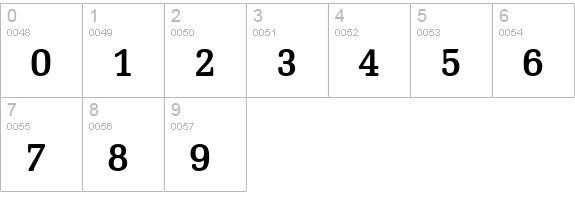
Bid Roman Bold is a strong, high-contrast variant in the Bid typeface family \xE2\x80\x94 well suited to headlines, attention-grabbing titles, and strong calls-to-action.
Bid Roman Bold is a modern and versatile typeface that exudes strength and sophistication. With its bold and distinctive letterforms, this font is perfect for headlines, logos, and branding projects that require a bold statement. The clean lines and sharp edges of Bid Roman Bold make it highly legible and impactful in both print and digital designs. What sets Bid Roman Bold apart is that it is available for free download at FontsMarket.com. This means that you can easily access and use this striking font in your projects without any cost. Whether you're a designer looking to add a touch of boldness to your work or a business owner seeking a font that commands attention, Bid Roman Bold is an excellent choice that won't break the bank. Download Bid Roman Bold today and elevate your designs with its powerful presence.